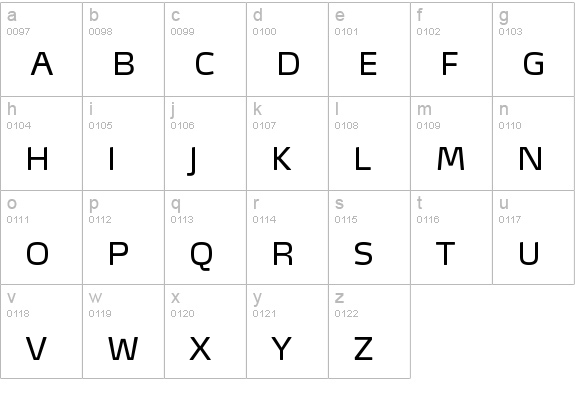
Max-LightSC Font Details
Max-LightSC font is a sleek and modern typeface that exudes elegance and sophistication. With its clean lines and subtle curves, this font is perfect for adding a touch of refinement to your designs. The light weight of Max-LightSC gives it a delicate and airy appearance, making it ideal for use in projects that require a sense of subtlety and grace. What sets Max-LightSC apart is not only its aesthetic appeal, but also its versatility. Whether you're designing a website, creating a logo, or crafting a stylish invitation, this font will add a touch of class to any project. Its timeless design ensures that it will remain relevant for years to come. Best of all, Max-LightSC is completely free to download at FontsMarket.com. This means that you can add this elegant font to your collection without breaking the bank. So why wait? Download Max-LightSC today and elevate your designs with its timeless beauty.